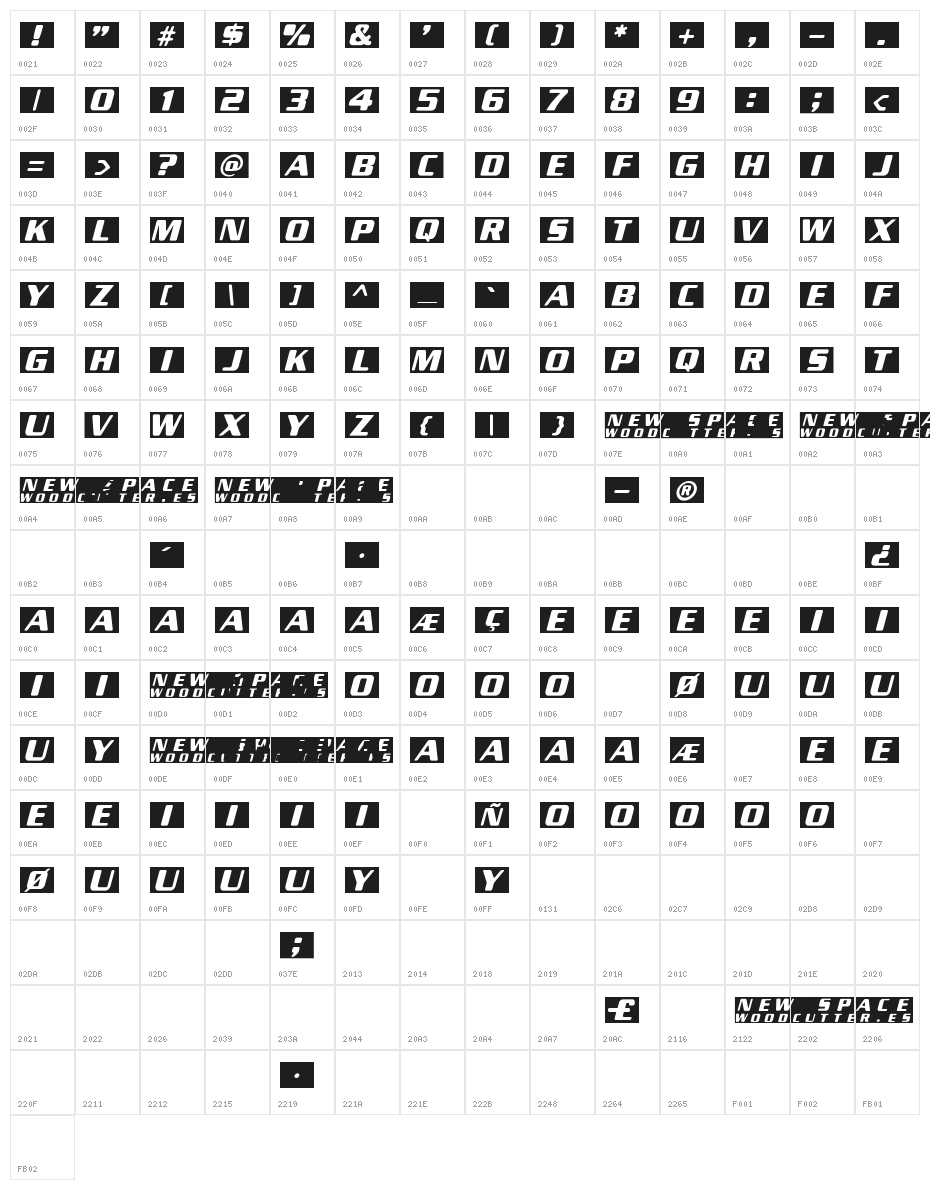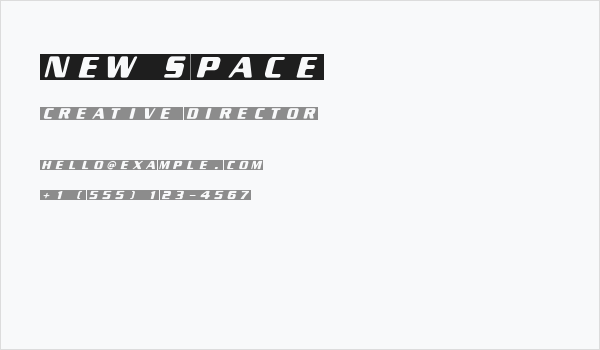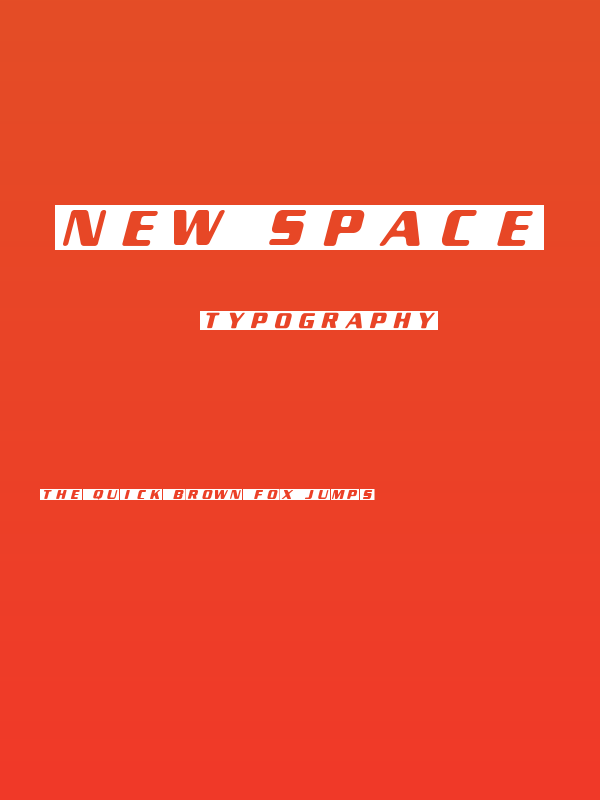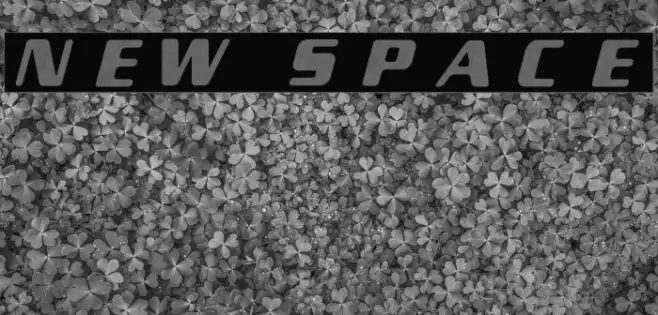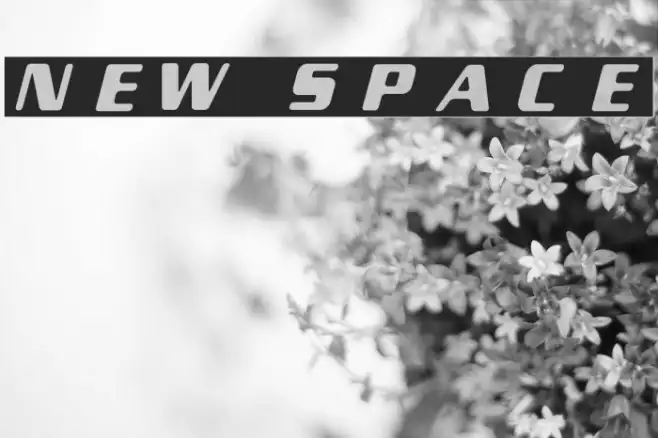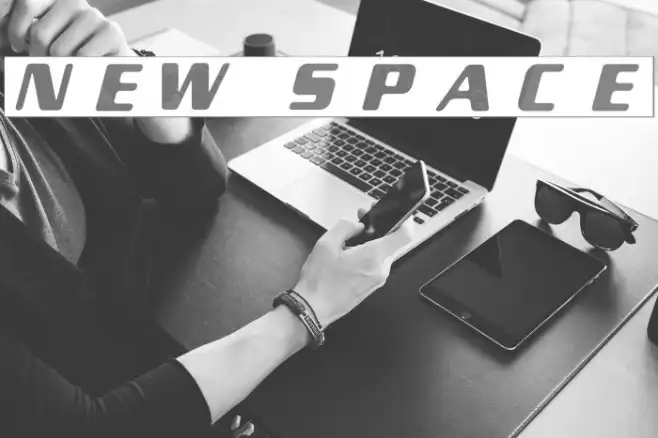
New Space Font
New Space Description
This font features a bold and dynamic style with a futuristic and sporty aesthetic. The characters are slightly italicized, giving a sense of movement and speed. The uppercase letters are angular and geometric, while the lowercase letters maintain a consistent style, enhancing readability. The numbers are bold and clear, making them suitable for digital displays or sports-related designs. Special characters are well-defined, maintaining the overall theme. The font's design is perfect for projects that require a modern and energetic look.
| Proposed Projects | Ideal for sports branding, digital displays, futuristic designs, and dynamic advertising. |